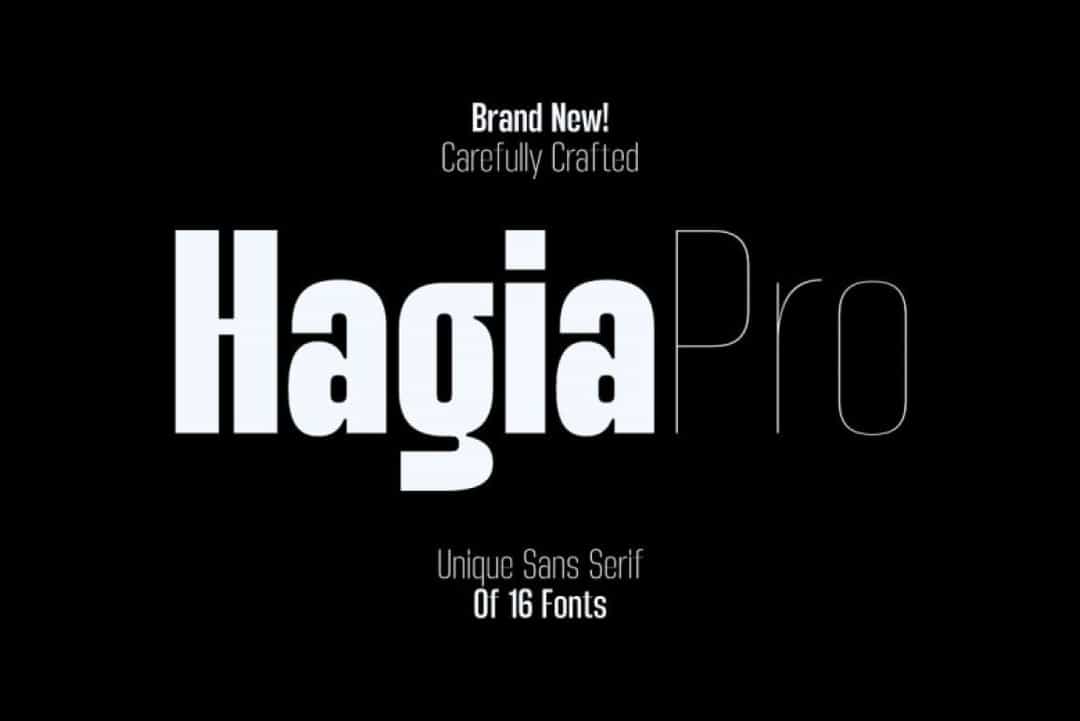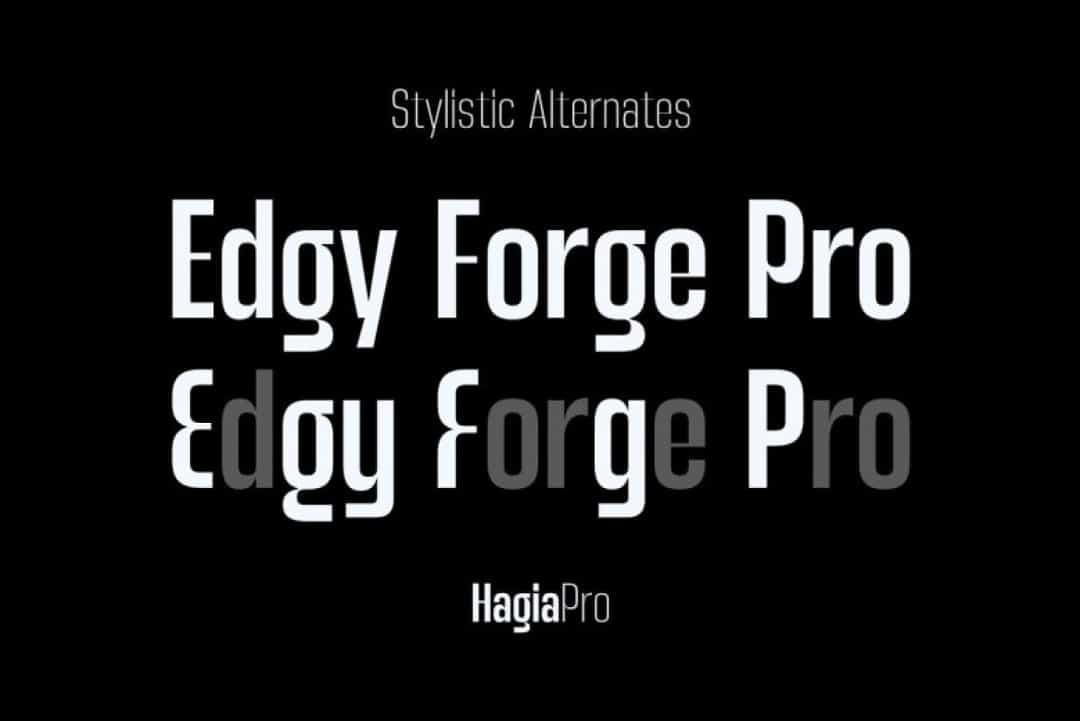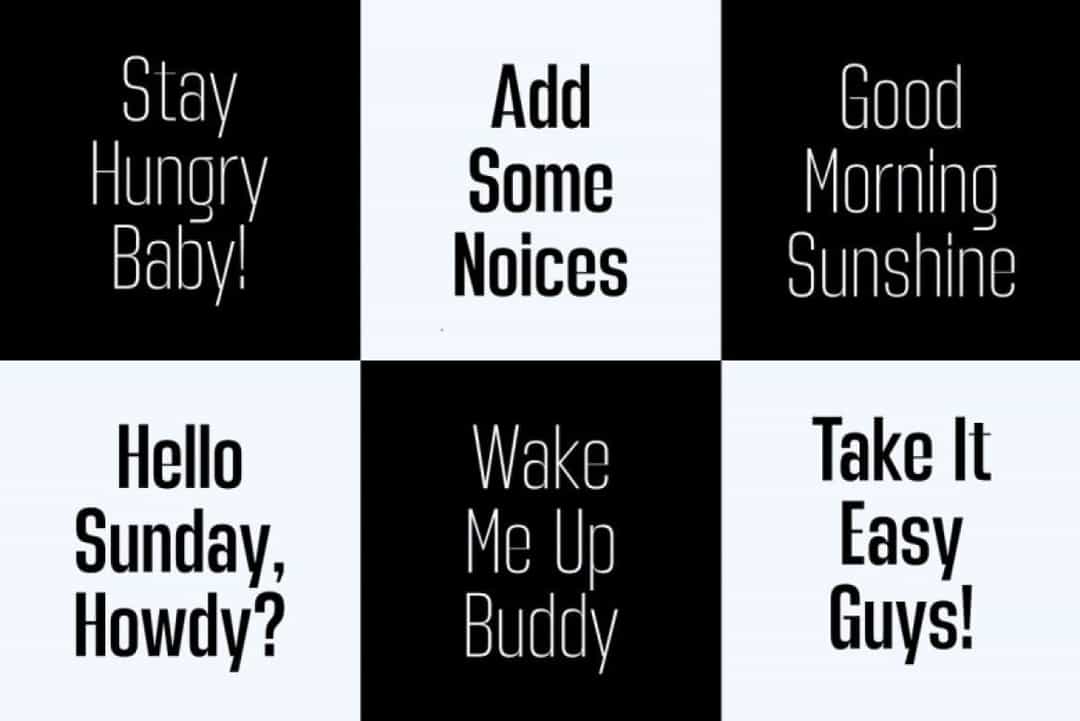
Hagia Pro’s Sans Serif Font Family offers designers an excellent means of crafting beautiful yet eye-catching things with its striking font family. Additionally, this font provides several weight options so users can have an enjoyable experience when using it.